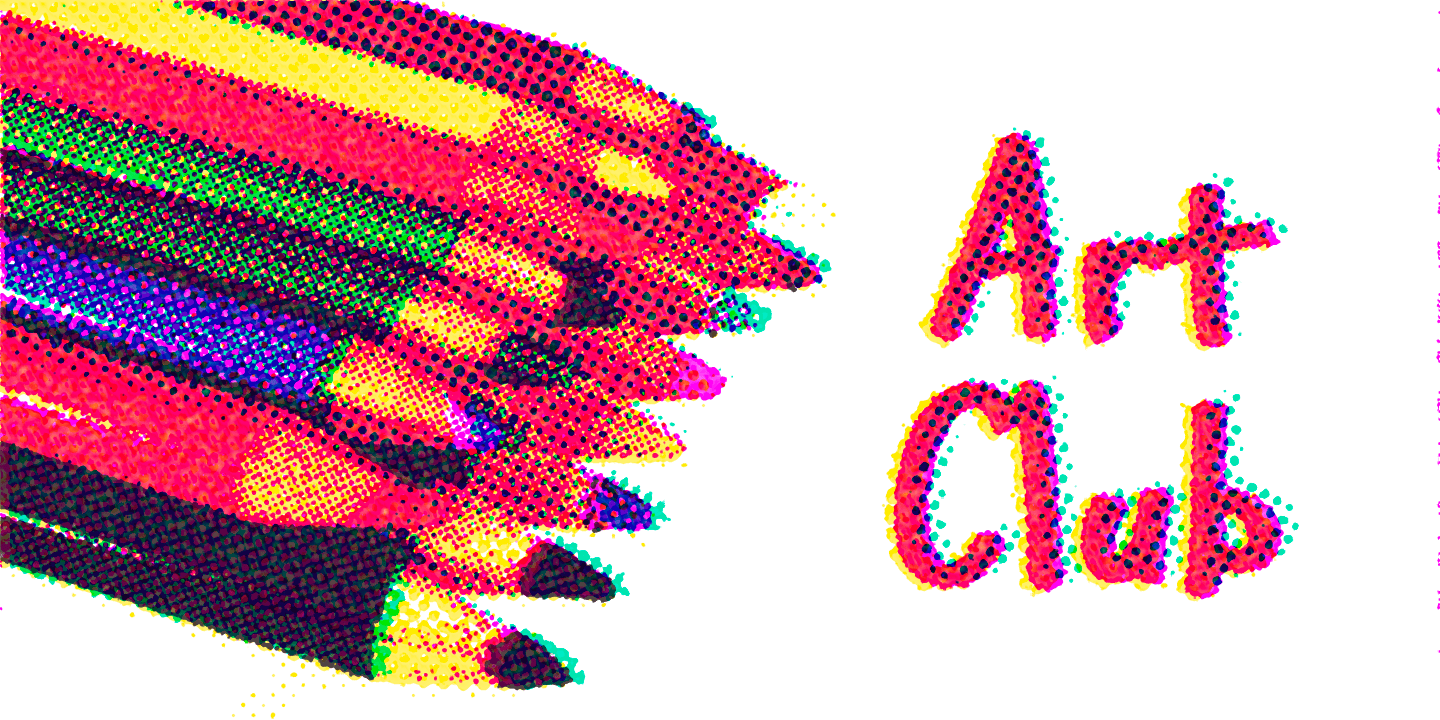
Art Club
Font Family by Open Window
Like Marker Felt or Comic Sans, Art Club has that informal/playful feel. Only this time its made to look and feel like it was written using a paint brush at your local after-school art club. Next time you want to add that cheerful spice to your Art Club Syllabus, or ANY syllabus, look no further than Art Club (the font).